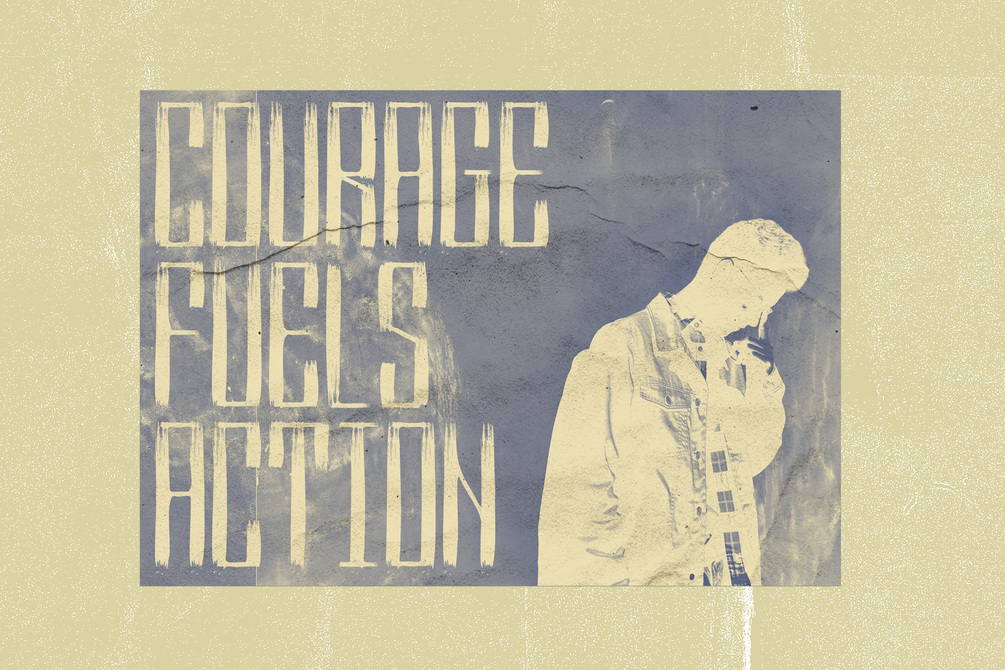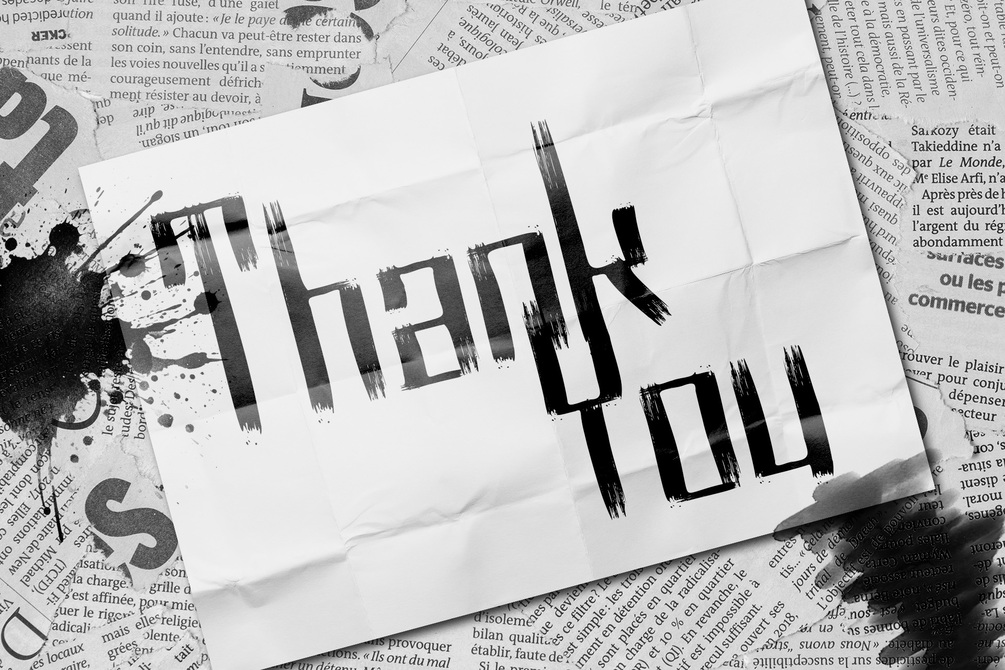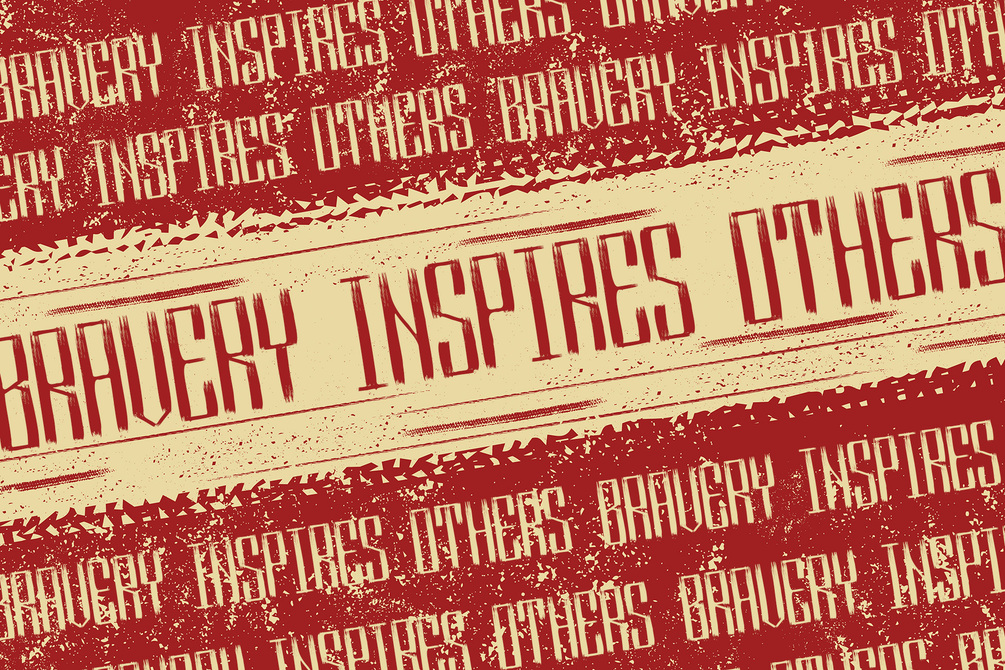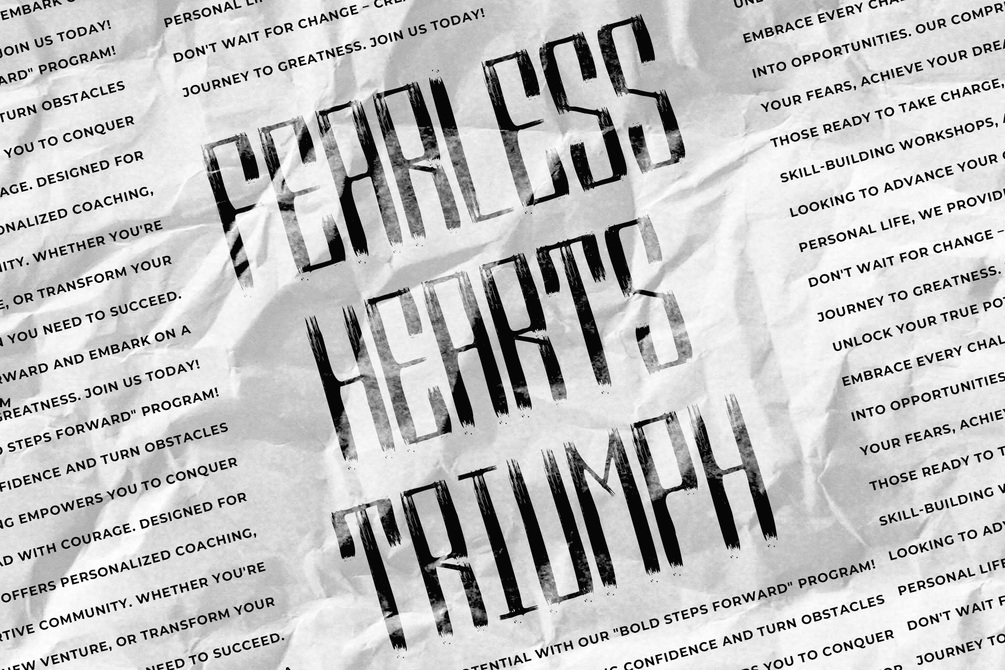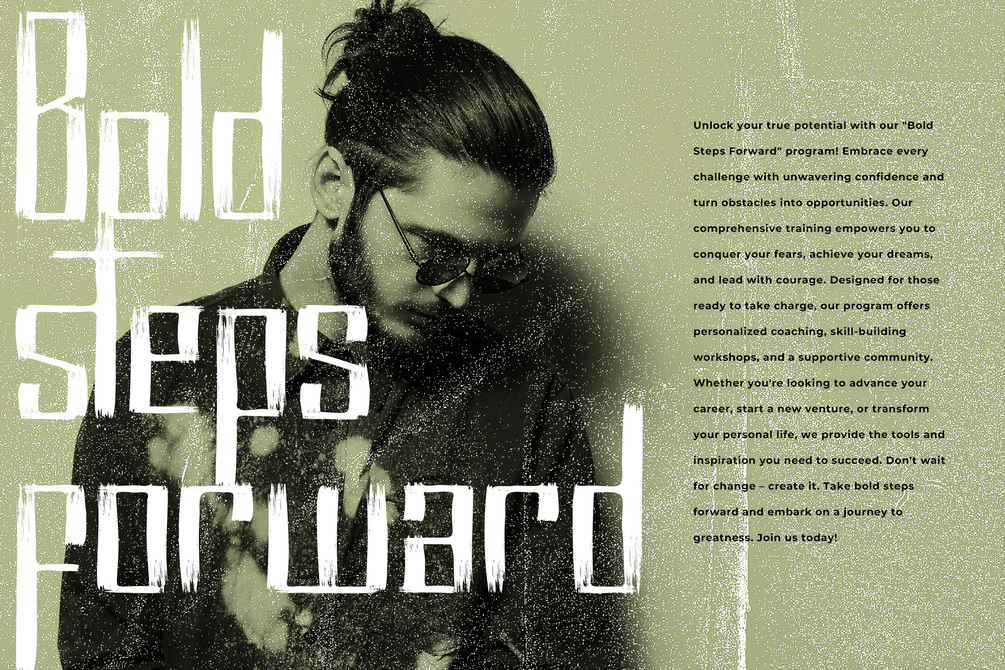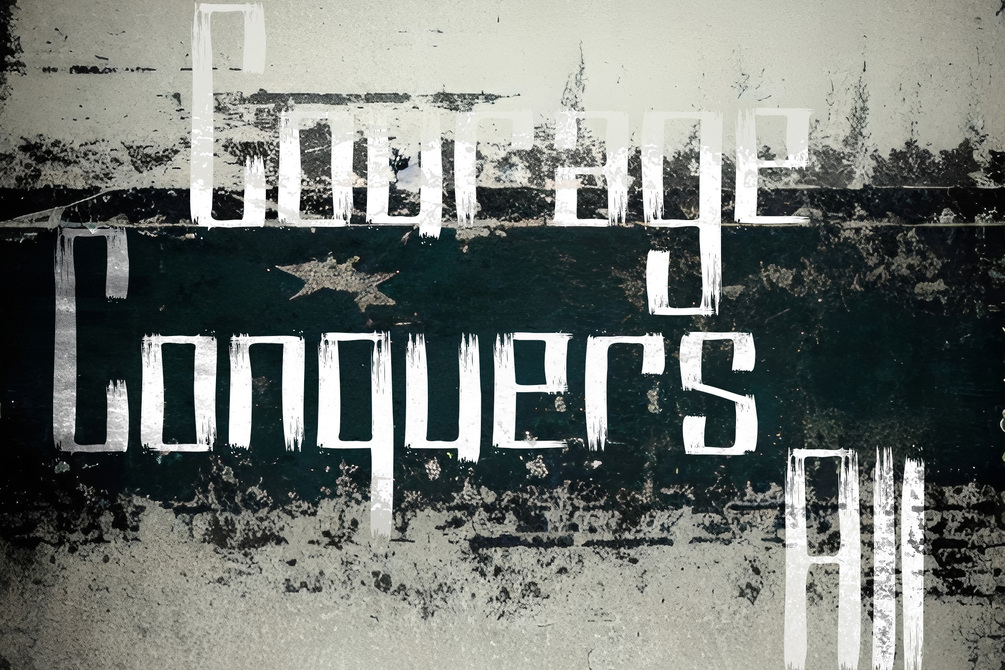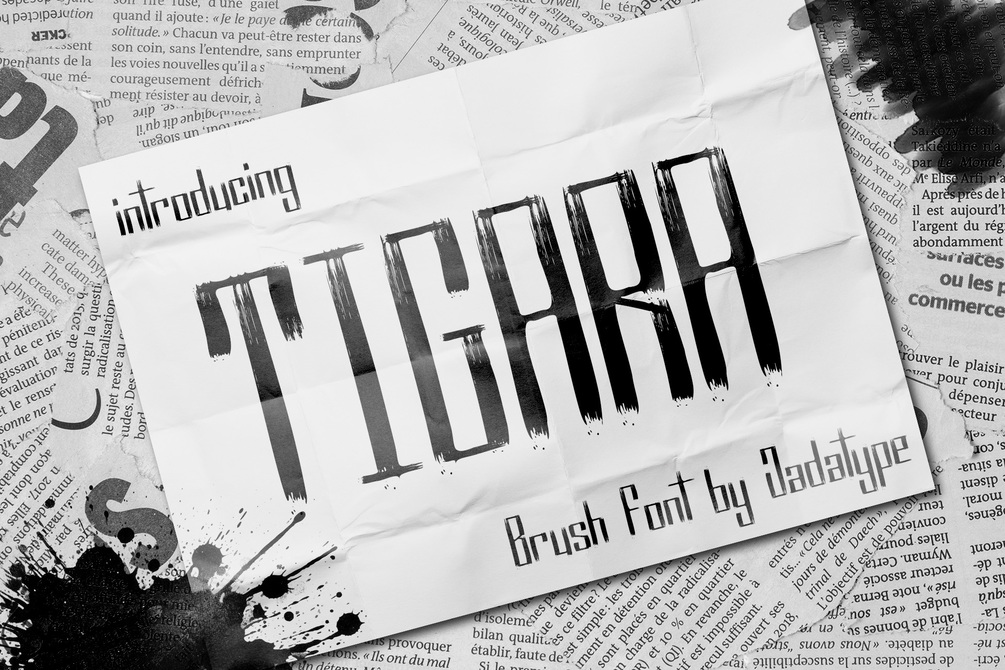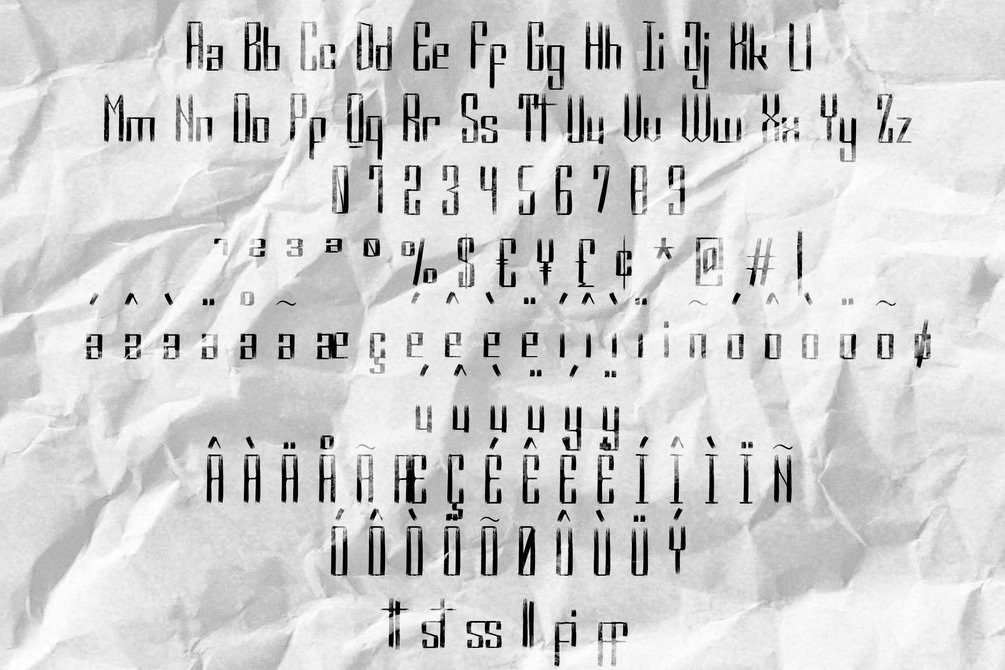
Tigara Font
Tigara is a display font that comes with stylish brush. Suitable for product, Branding, social media, logotype and so on. contains standard English letters, numbers, punctuation, and several accents that support multilingualism.